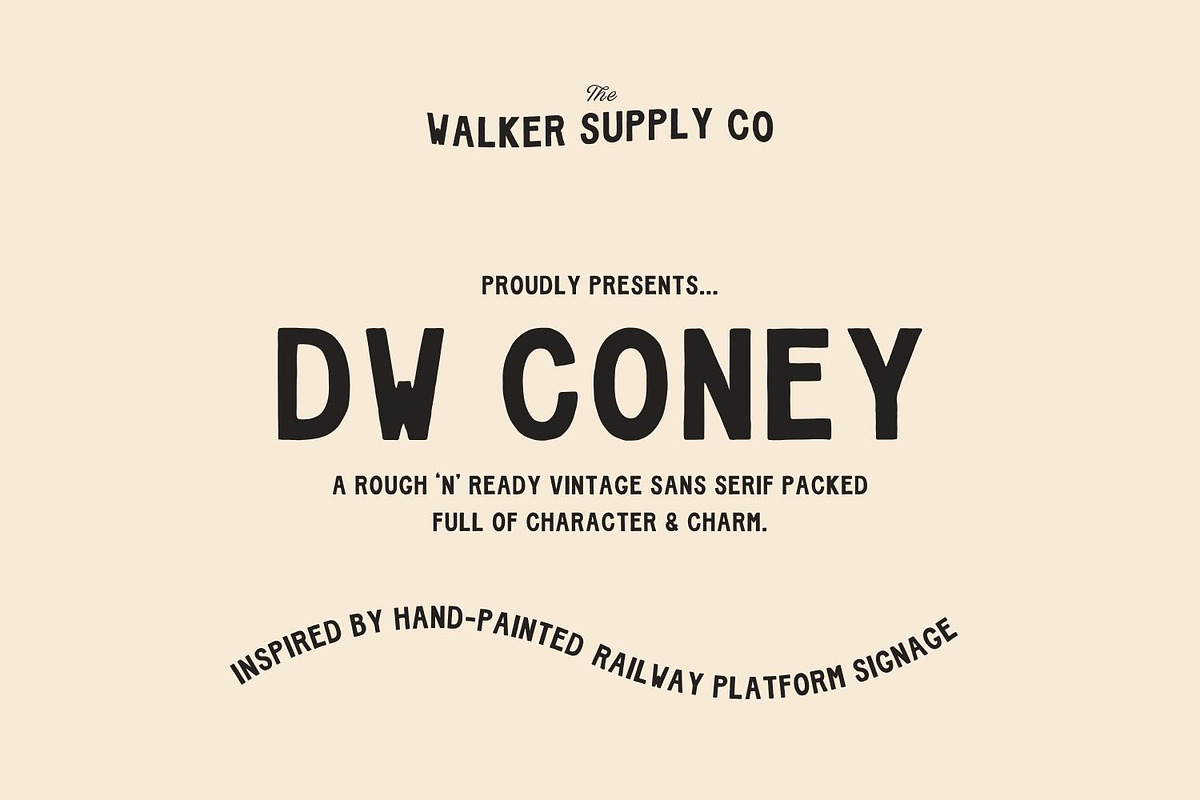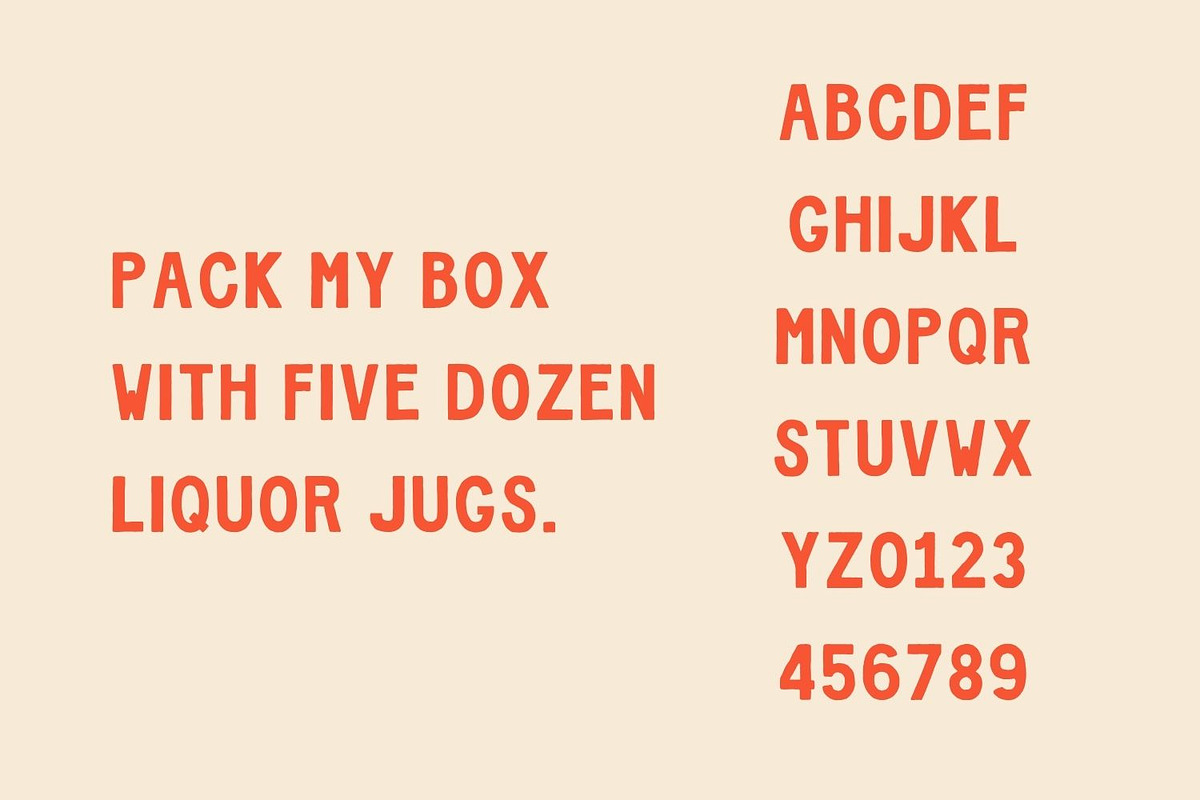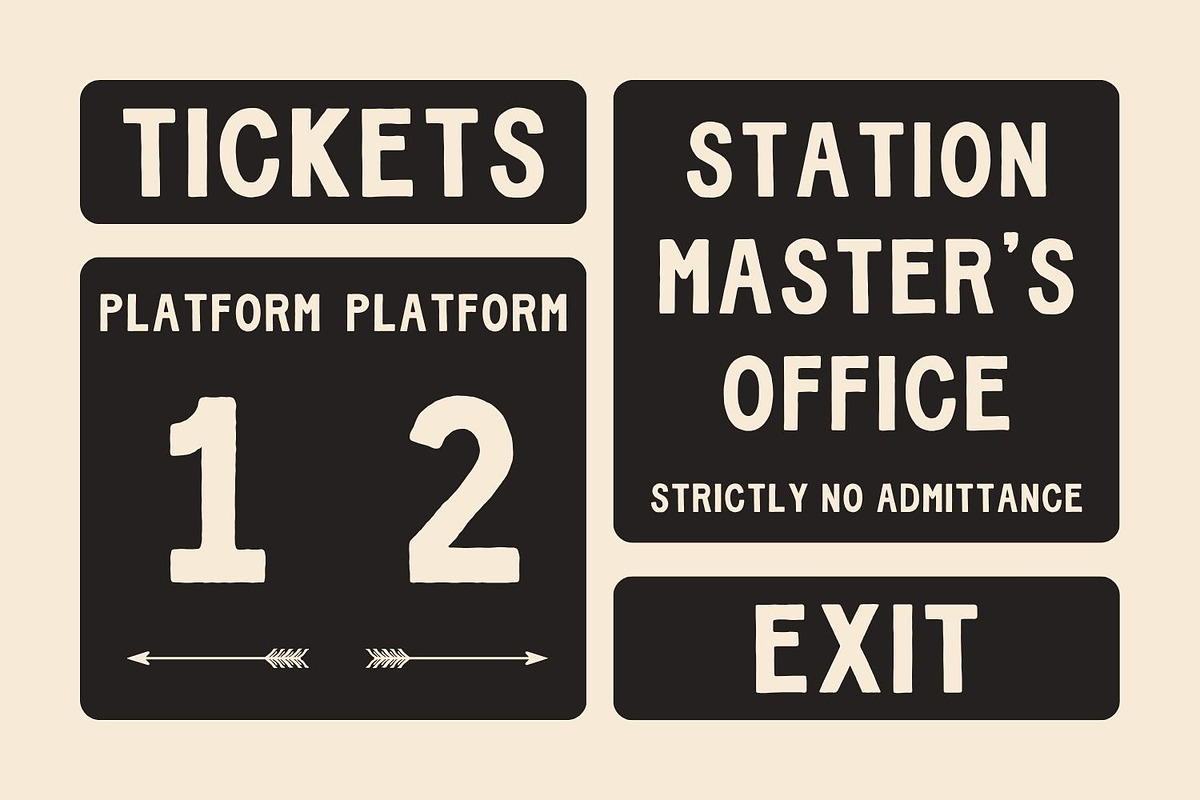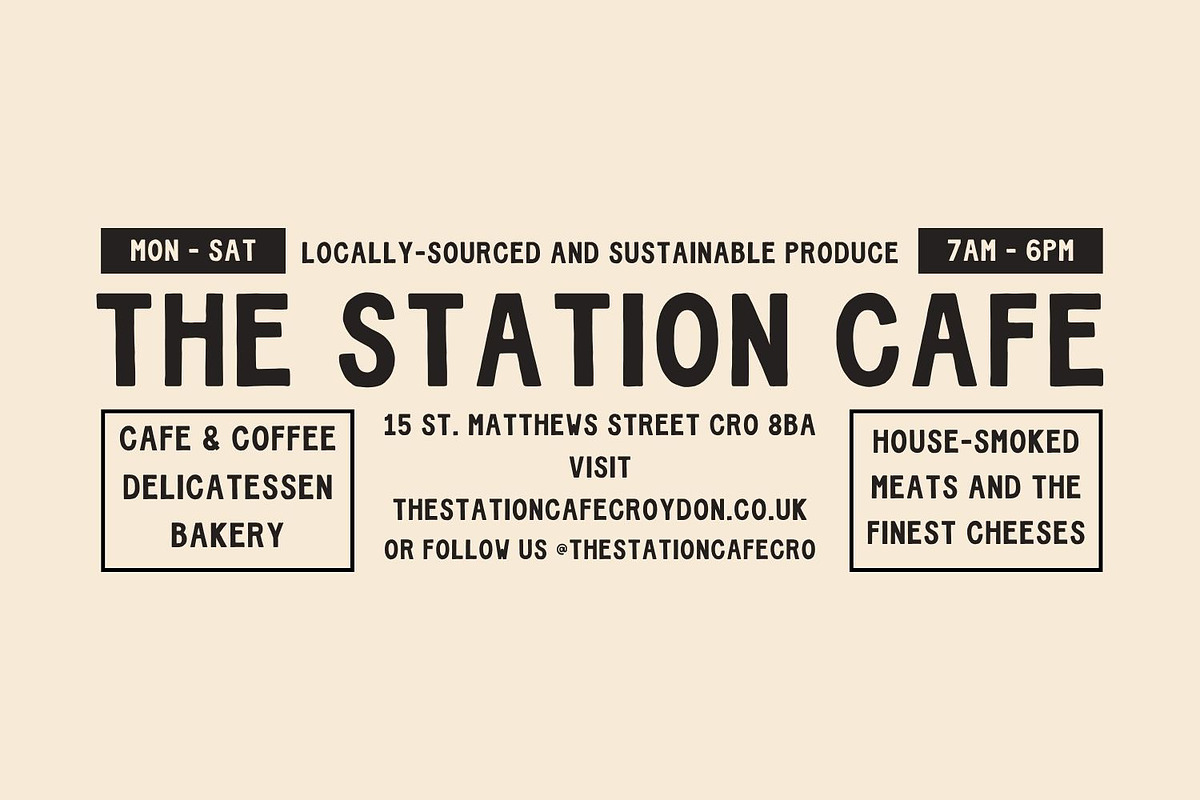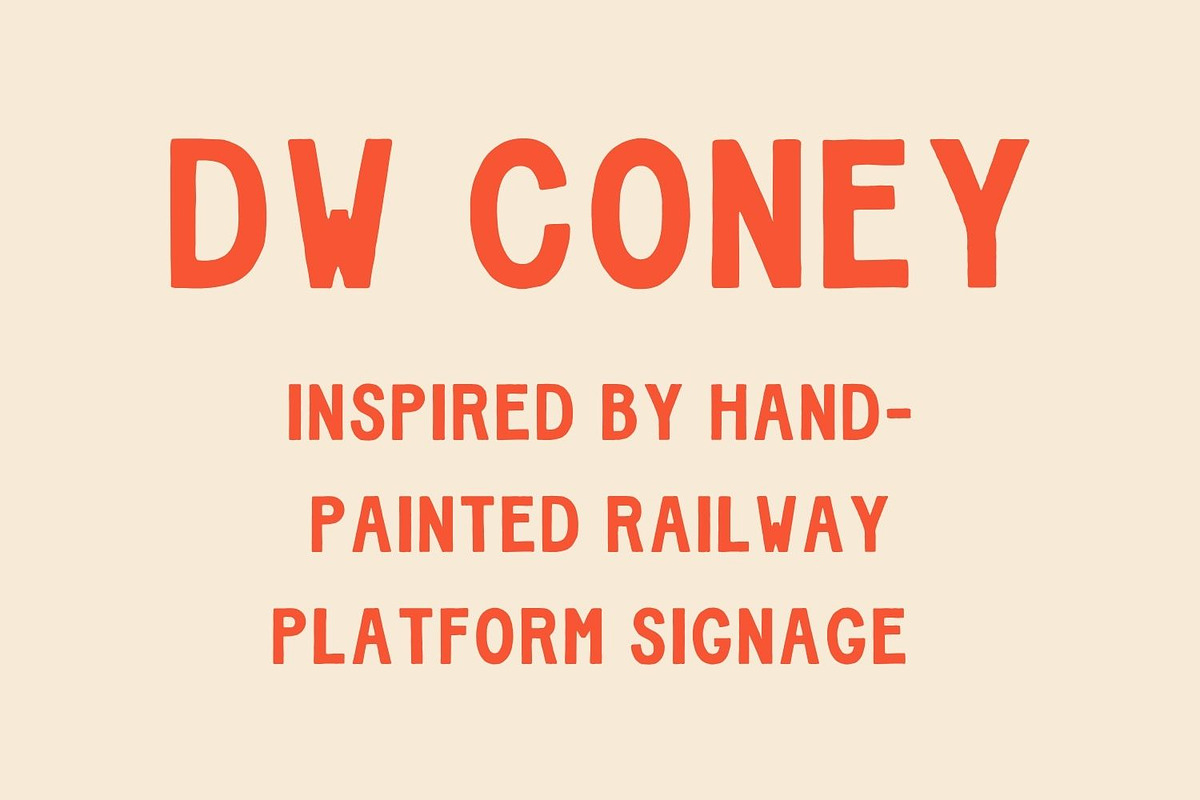
DW Coney - Vintage Hand-Painted Font
Introducing DW Coney, a Rough ‘n’ Ready, hand-drawn, sans serif typeface inspired by vintage hand-painted railway signage.
It’s full of character and charm and looks great on badges, logos, posters, prints and more!